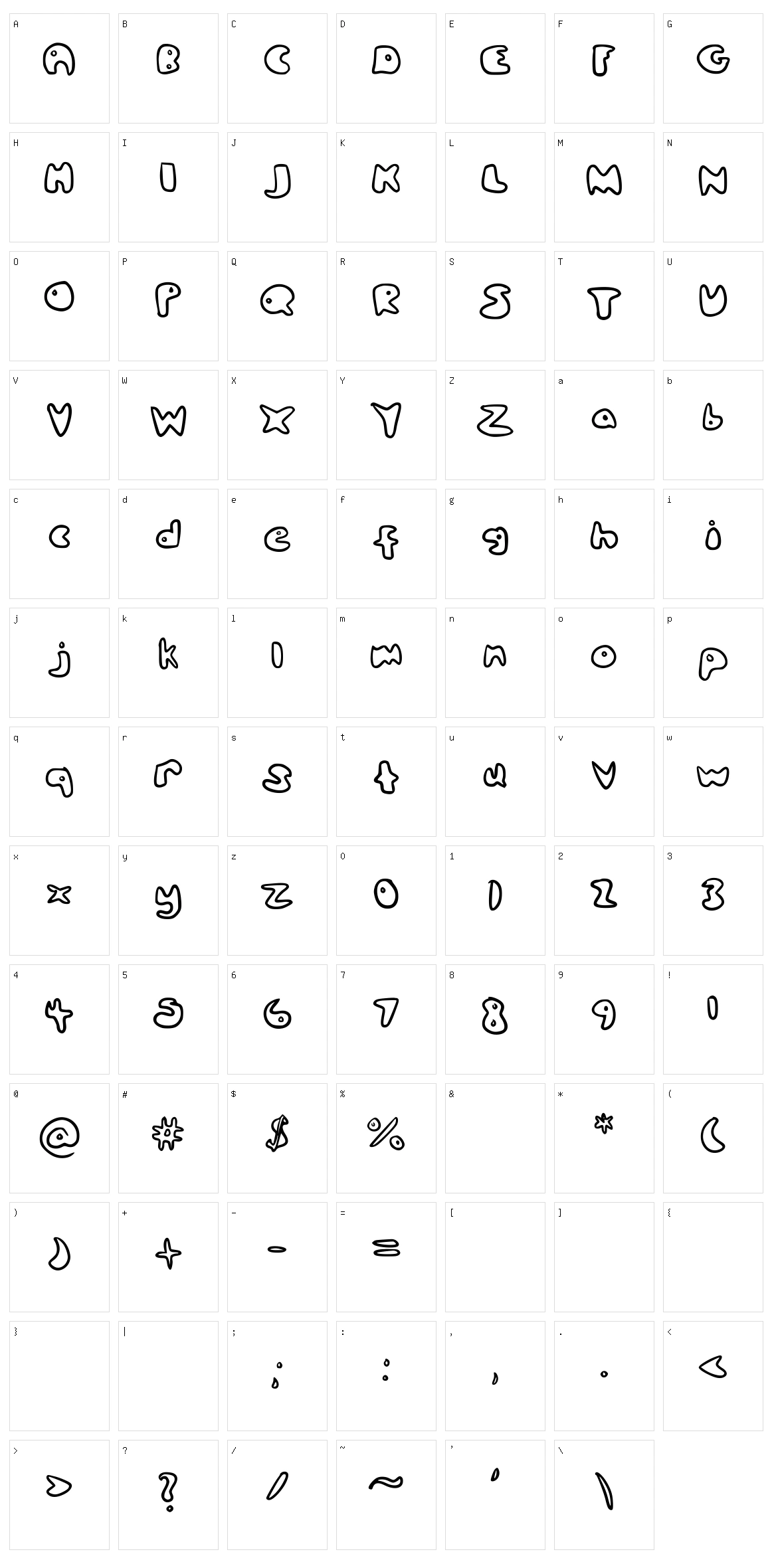
The free font Bloop is carefully designed by Sapphire Starr, showcasing a thoughtful balance of creativity and usability and falls under the Cartoon font style. When you download the ZIP file, it contains only 16.78 KB of font files, making it lightweight and quick to download. Please review the license details below to understand permitted usage and distribution rights. If license information is not available, we recommend using this font for personal projects only or contacting the author directly for commercial usage permissions.